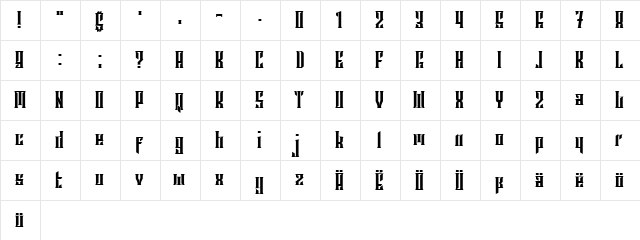
Archipelago Condensed
Design Context for Archipelago Typeface
Archipelago is a composed and adaptable typeface that performs quietly and consistently across a wide range of design contexts. The condensed width makes it efficient for tight spaces without sacrificing legibility.
Pro Tip: Use Archipelago in both headline and body roles to test its range before committing to a single application.